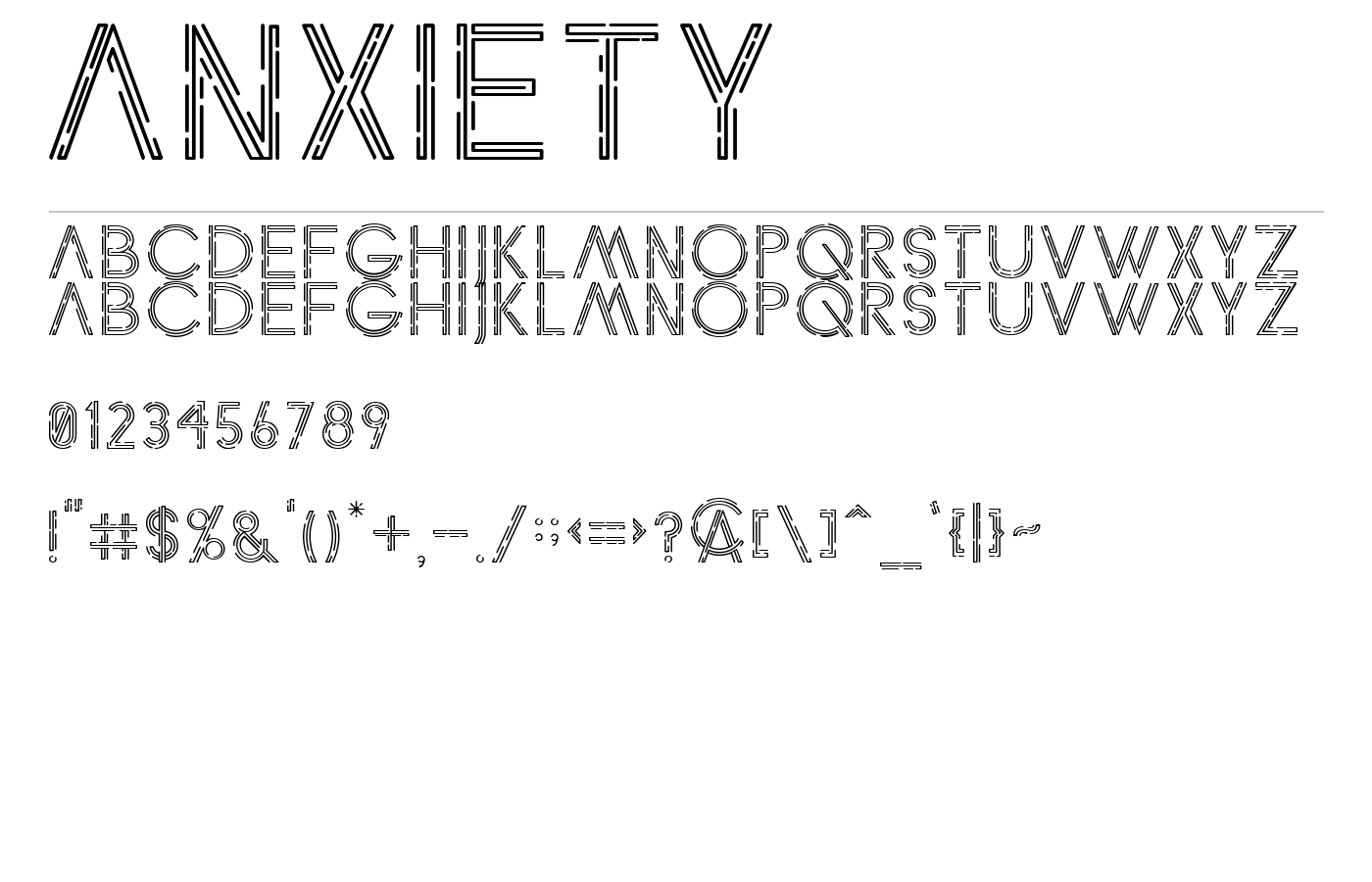
Anxiety is a distinctive sans serif display font characterized by its intricate, multi-line stroke construction that creates a dynamic and slightly jittery visual effect. Its tall, narrow letterforms with consistent line weights and geometric shapes give it a modern, edgy personality ideal for striking titles or creative branding that seeks to convey energy and tension. This font is best suited for bold headlines, posters, and artistic designs where a unique, attention-grabbing style is desired.